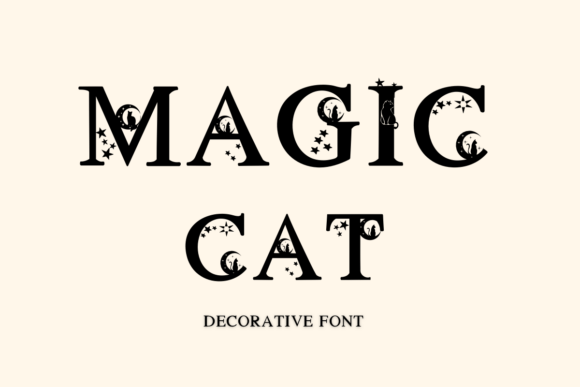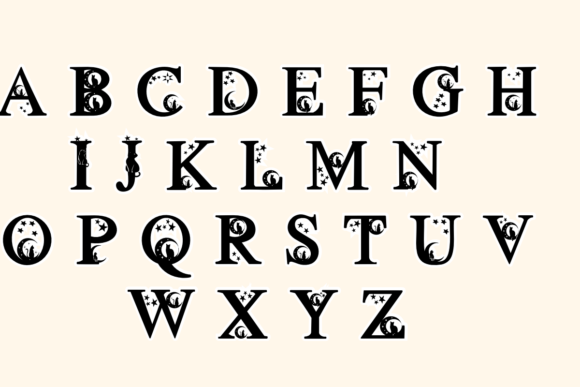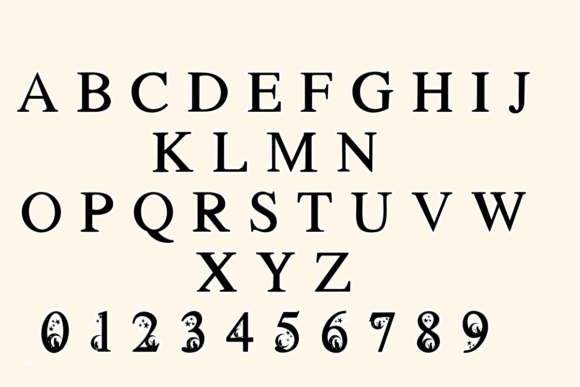
Magic Cat Font
About the Magic Cat Font
Step up your design game with Magic Cat Font, a font that exudes confidence and style. Magic cat is a Decorative font. You can use it for taking notes, writing a diary, or making greeting cards. However, you can still use it for other designs, such as banners, content, mugs, cards, shirts, stationery, social media posts, and more!
Magic Cat’s playful, slightly whimsical style works best in headlines, short slogans, and branding elements where a touch of fun is desired. It’s ideal for children’s products, playful brands, or projects needing a lighthearted touch. Avoid using it for body text or long paragraphs; its decorative nature hinders readability in extended use. It also isn’t suitable for UI elements or situations requiring high legibility.
Pairing Magic Cat with a clean sans-serif like Open Sans for body copy creates a strong visual contrast, balancing its whimsicality with a sense of order. For a more sophisticated feel, consider pairing it with a classic serif font such as Garamond or a modern geometric sans-serif such as Montserrat. These pairings enhance its personality without overwhelming the design.
The font’s overall personality is best described as friendly and playful, yet ultimately approachable and not overly childish. Its decorative elements are subtle enough to be versatile, making it suitable for a range of projects but best utilized strategically to maximize its impact.
Magic Cat Font Example